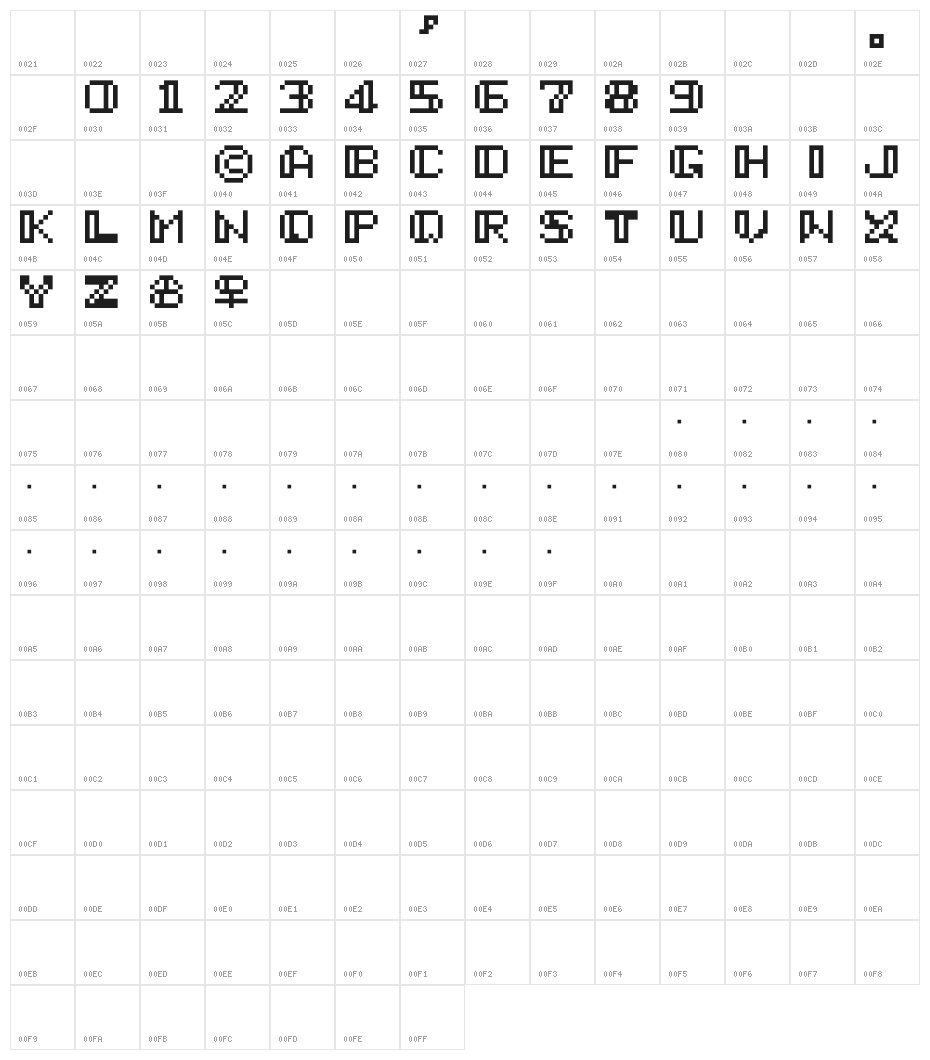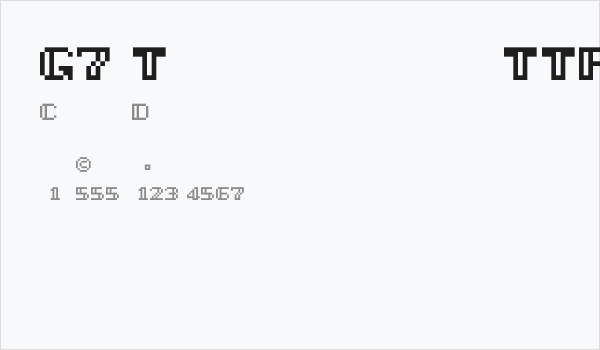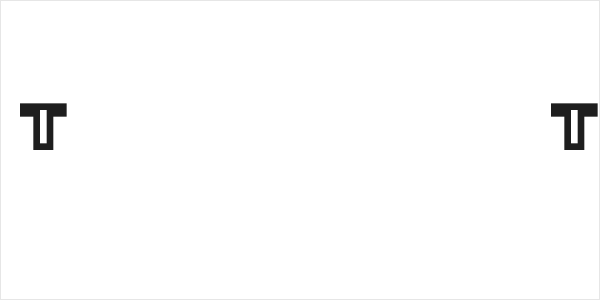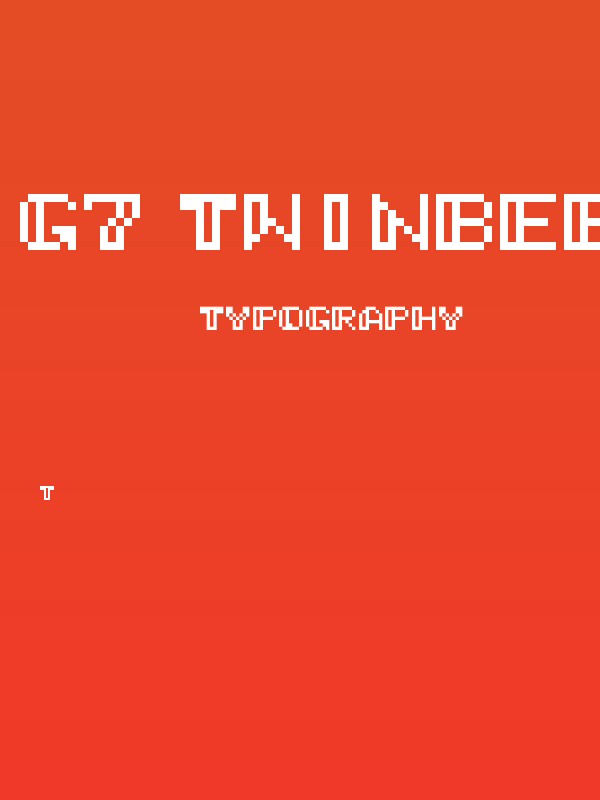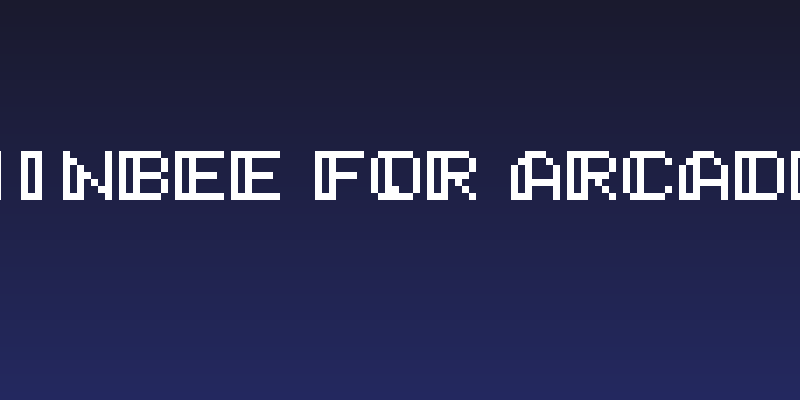
G7 Twinbee for arcade TTF Font
G7 Twinbee for arcade TTF Description
This font features a distinct pixelated style reminiscent of classic arcade games. The characters are constructed with a grid-like precision, giving them a blocky and retro appearance. Each letter and number is designed with sharp edges and uniform stroke widths, creating a cohesive and nostalgic look. The font captures the essence of early digital displays, making it ideal for projects that aim to evoke a sense of nostalgia or pay homage to the golden age of arcade gaming.
| Use Case | Logos, Headlines, Digital Art |
| Proposed Projects | Ideal for retro-themed video games, nostalgic branding, digital art projects, and any design that seeks to capture the essence of vintage arcade aesthetics. |